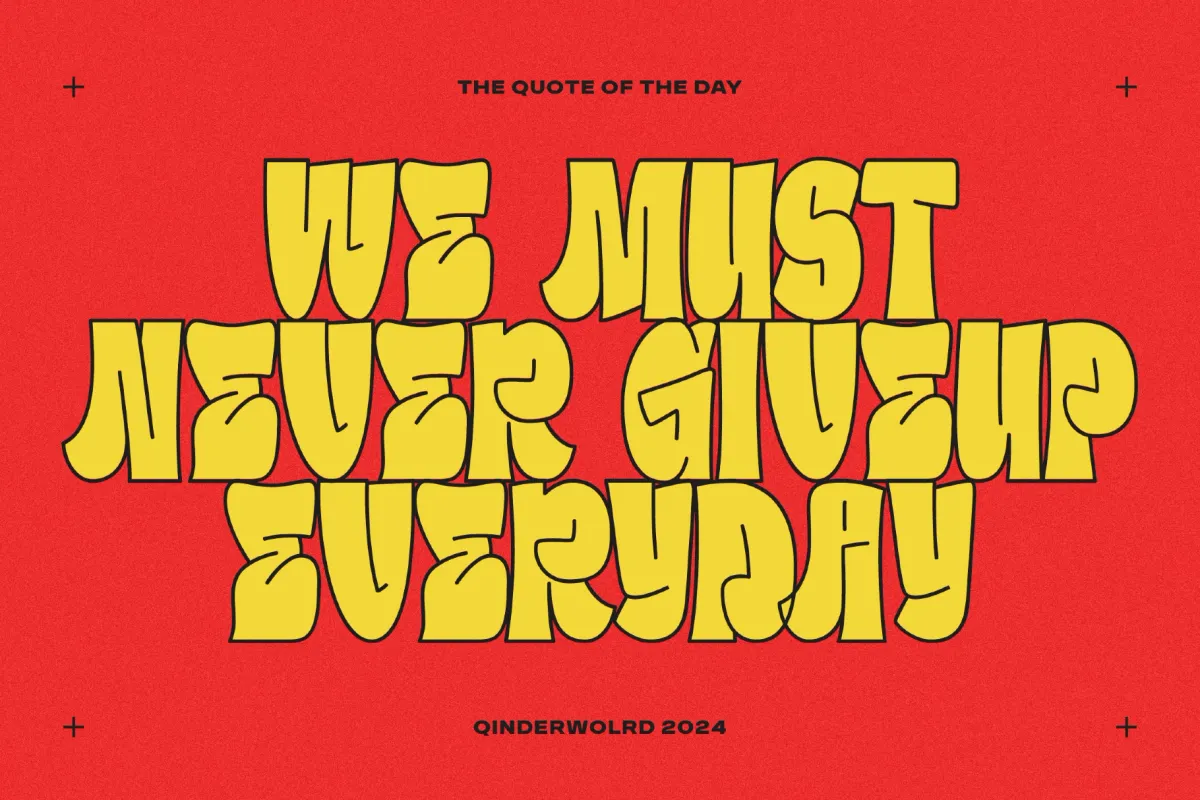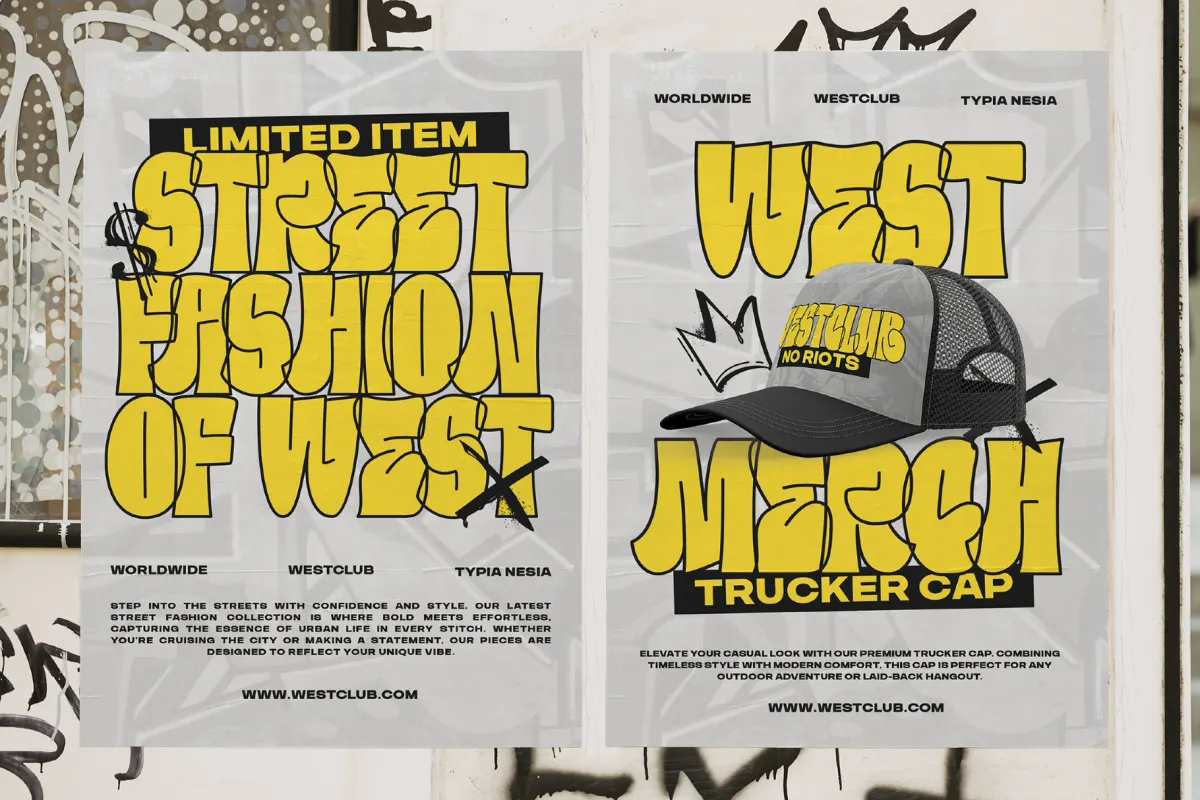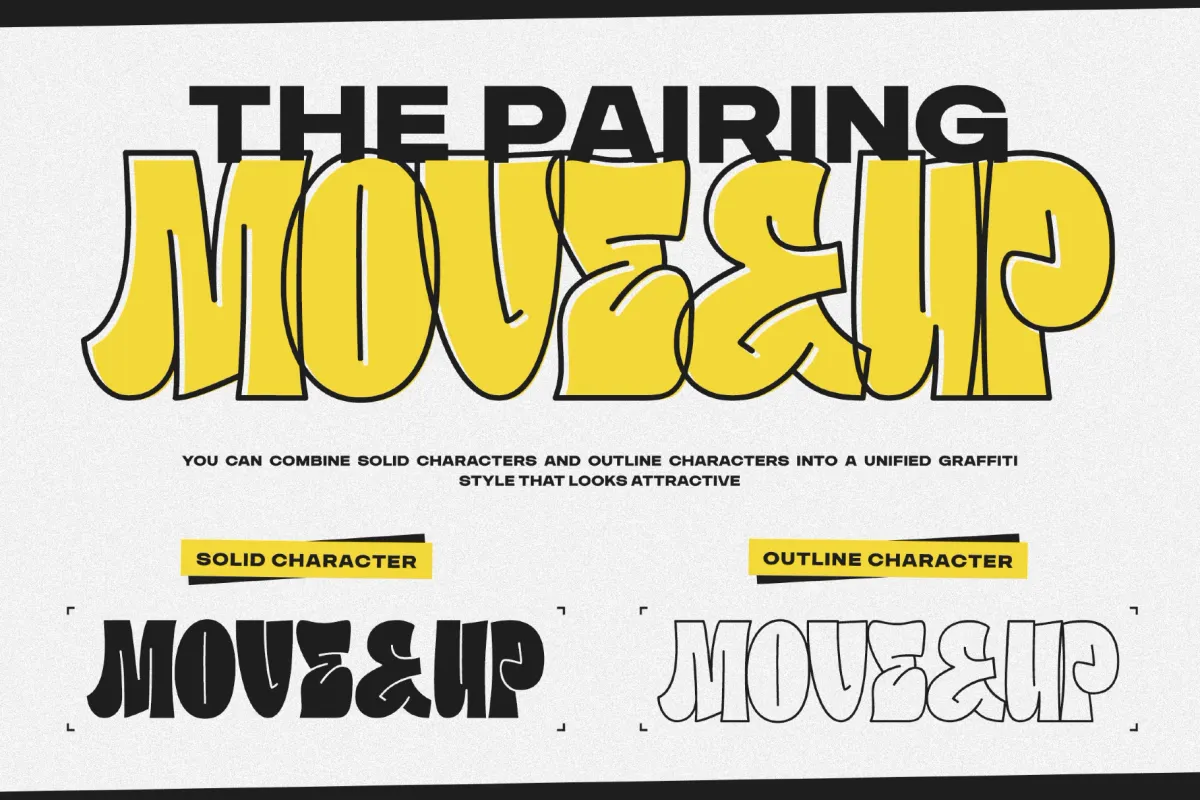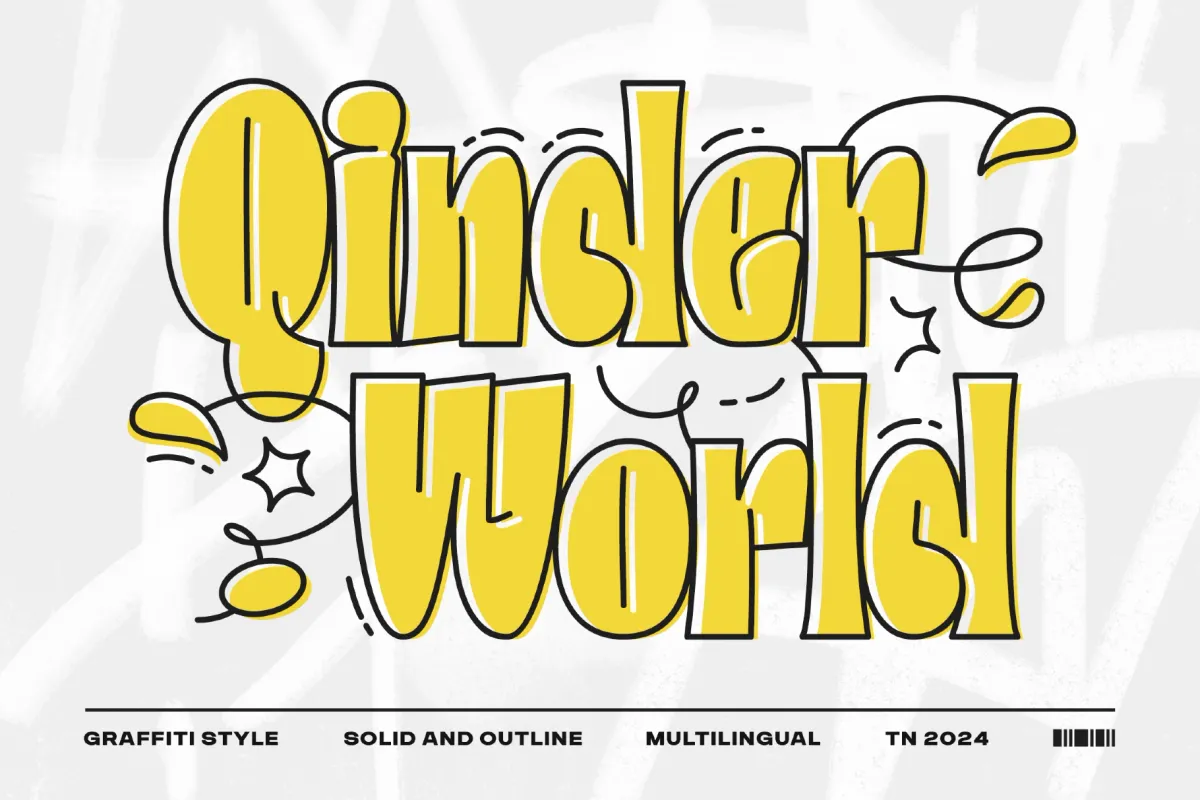
QinderWorld - Playful Graffiti Display Font
Solid
QinderWorld is a Modern Graffiti Font that brings the energy and raw expression of street art into the digital space. This font features both solid and outline styles, allowing for dynamic and versatile design possibilities. The font is ideal for branding with urban-themed projects, streetwear branding, album covers, event posters, and social media graphics. It’s the perfect choice for designers looking to infuse their work with an urban, contemporary vibe while maintaining the flexibility to adapt to various design needs.